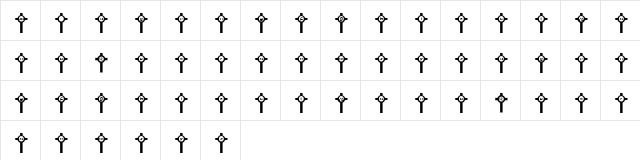
JLR Clonmacnoise Regular
Design Context for JLR Clonmacnoise Typeface
JLR Clonmacnoise is a composed and adaptable typeface that performs quietly and consistently across a wide range of design contexts.